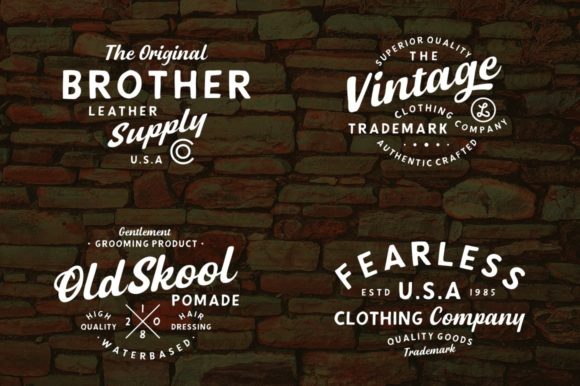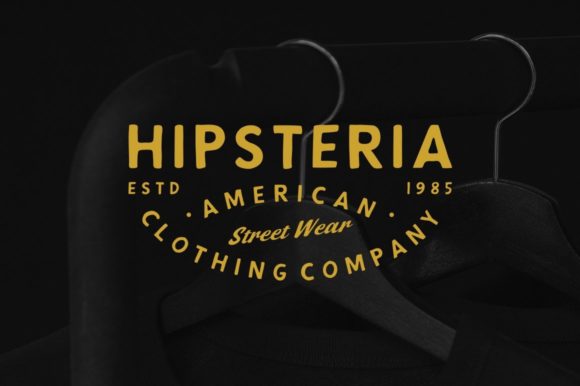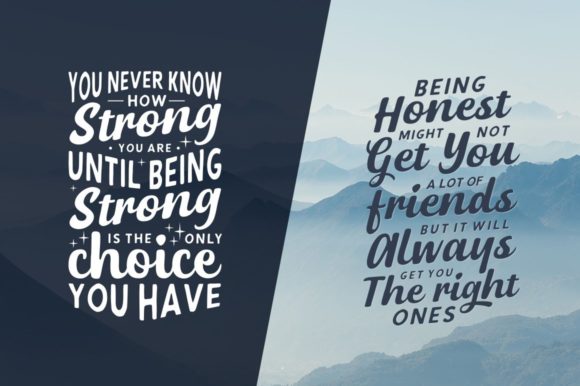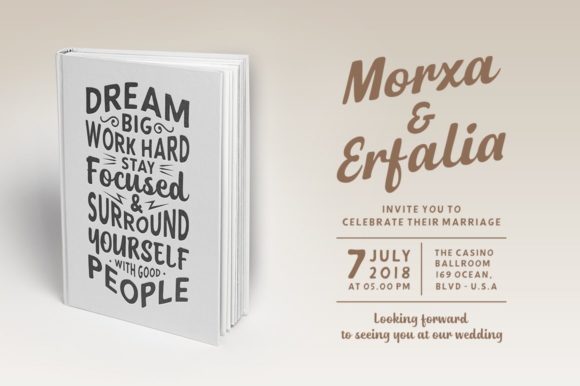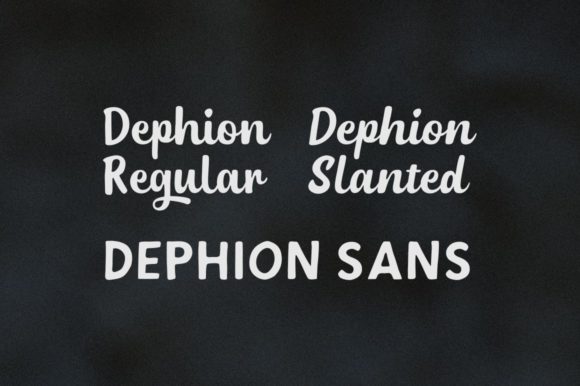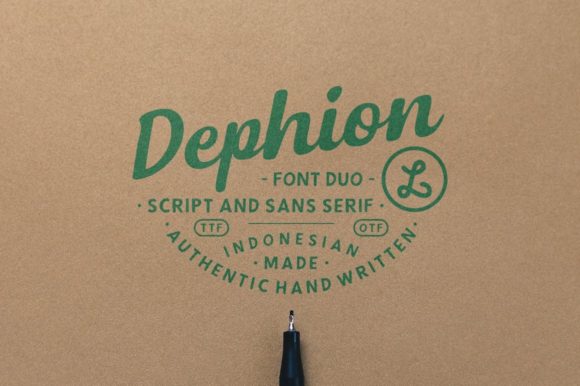
Discover the Charm of Dephion Font: A Handmade Masterpiece
In the world of design, handmade items have always been cherished for their unique and distinctive appeal. They add a touch of personality and character to any project, setting them apart from mass-produced alternatives. At the heart of this philosophy lies Dephion Font, a beautiful, handmade typeface that embodies the essence of modern style calligraphy.
The Story Behind Dephion
Dephion Font is the result of a deliberate effort to break away from the conventional perfection of digital fonts. Its creators sought to infuse a sense of casualness and naturalness into a typeface that would bring a fresh perspective to the world of design. By intentionally making the shape of the letters imperfect and irregular, Dephion exudes a sense of humanity and approachability.
A Trio of Fonts: Dephion Script Regular, Slanted, and Dephion Sans
Dephion Font is not just a single typeface, but a versatile collection of three fonts that can be used in a variety of creative ways. The family includes:
- Dephion Script Regular: The foundation of the family, this font showcases the beautiful, flowing script that Dephion is known for.
- Dephion Script Slanted: Adding a touch of dynamism to the regular script, the slanted version injects a sense of movement and energy into any design.
- Dephion Sans: For those who prefer a more straightforward, sans-serif approach, Dephion Sans offers a clean and modern alternative.
One of the most exciting aspects of Dephion Font is its potential for creative pairing. By combining the script regular, slanted, and sans fonts, designers can create a wide range of attractive designs that exude a sense of casual sophistication. Whether you’re working on a branding project, a website, or a craft project, Dephion offers the versatility to experiment and push boundaries.
PUA Encoding: Unlocking a World of Glyphs and Ligatures
Dephion Font is PUA (Private Use Area) encoded, which means that accessing the amazing glyphs and ligatures is incredibly easy. This feature allows designers to tap into a vast array of special characters, swashes, and other typographic elements that can elevate their designs to the next level.
Why Designers and Crafters Love Dephion
Dephion Font has quickly become a favorite among designers and crafters who appreciate its unique blend of modern style and handmade charm. Here are just a few reasons why:
- Unique and distinctive: Dephion’s irregular shapes and handmade feel ensure that your designs stand out from the crowd.
- Versatile: With three fonts to choose from, Dephion offers endless possibilities for creative experimentation.
- Ease of use: PUA encoding makes it simple to access the full range of glyphs and ligatures.
- Casual and natural: Dephion’s modern style calligraphy brings a sense of relaxed sophistication to any project.
Dephion Font is a true gem in the world of design, offering a refreshing alternative to traditional digital fonts. Its handmade charm, versatility, and ease of use make it an ideal choice for designers and crafters looking to add a touch of personality to their projects. Whether you’re working on a professional design or a personal craft project, Dephion is sure to inspire and delight.